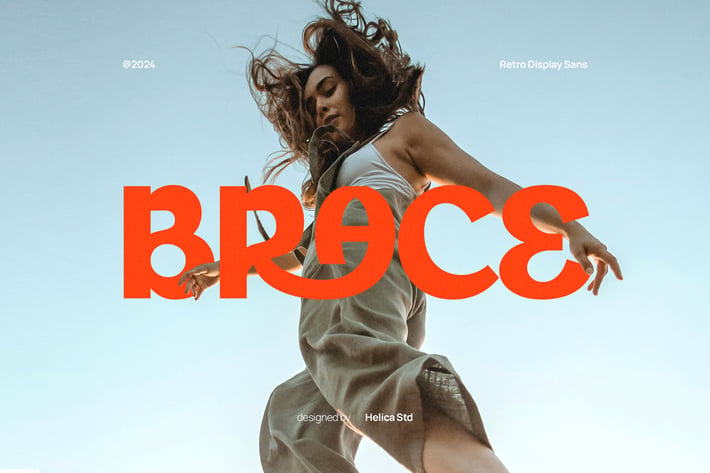
BRACE Display Sans Retro Font
BRACE Display Sans Retro Font typeface is perfect for crafting elegant quotes, stunning logos, captivating magazine headers, and so much more.
Ligatures & Alternate
Numeral & Punctuations